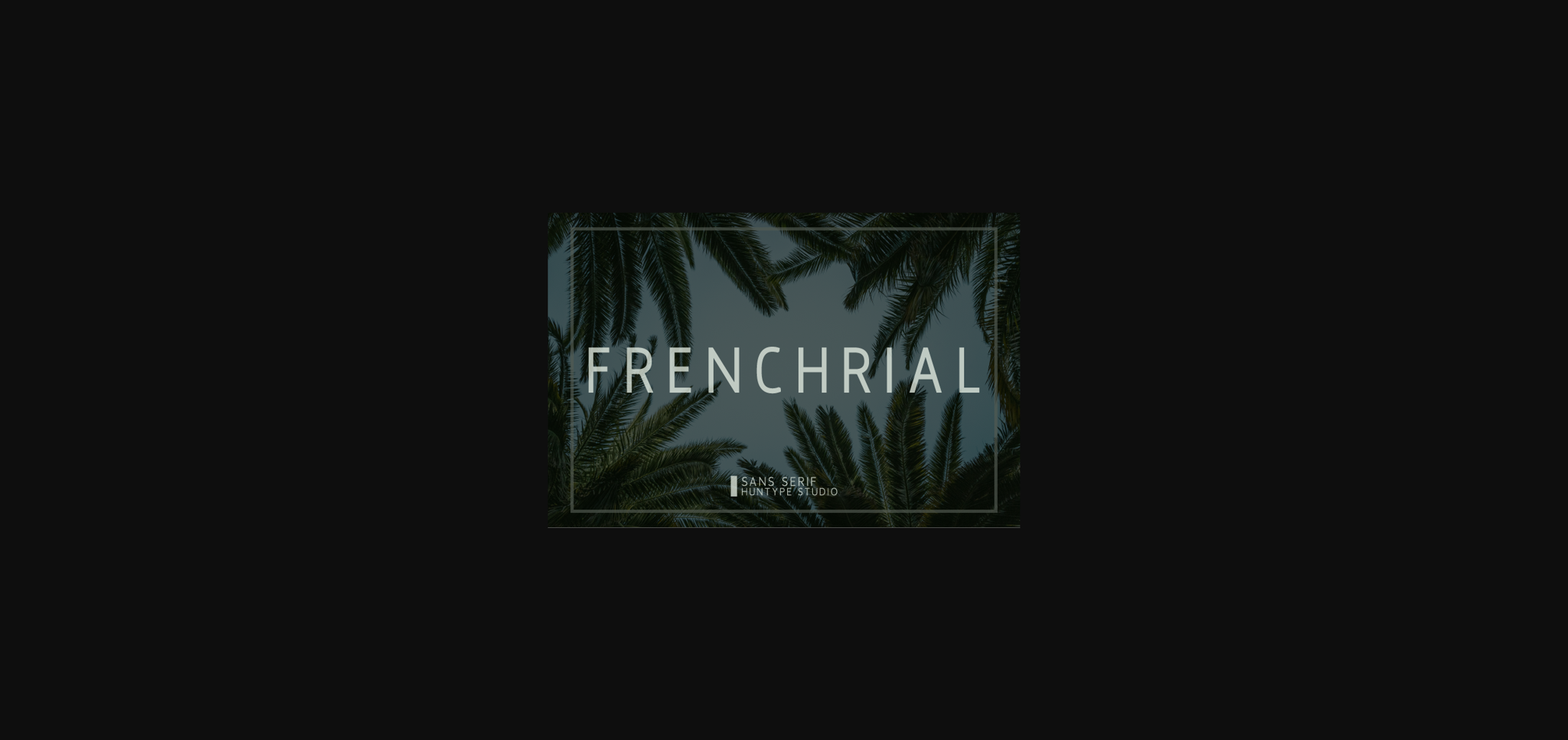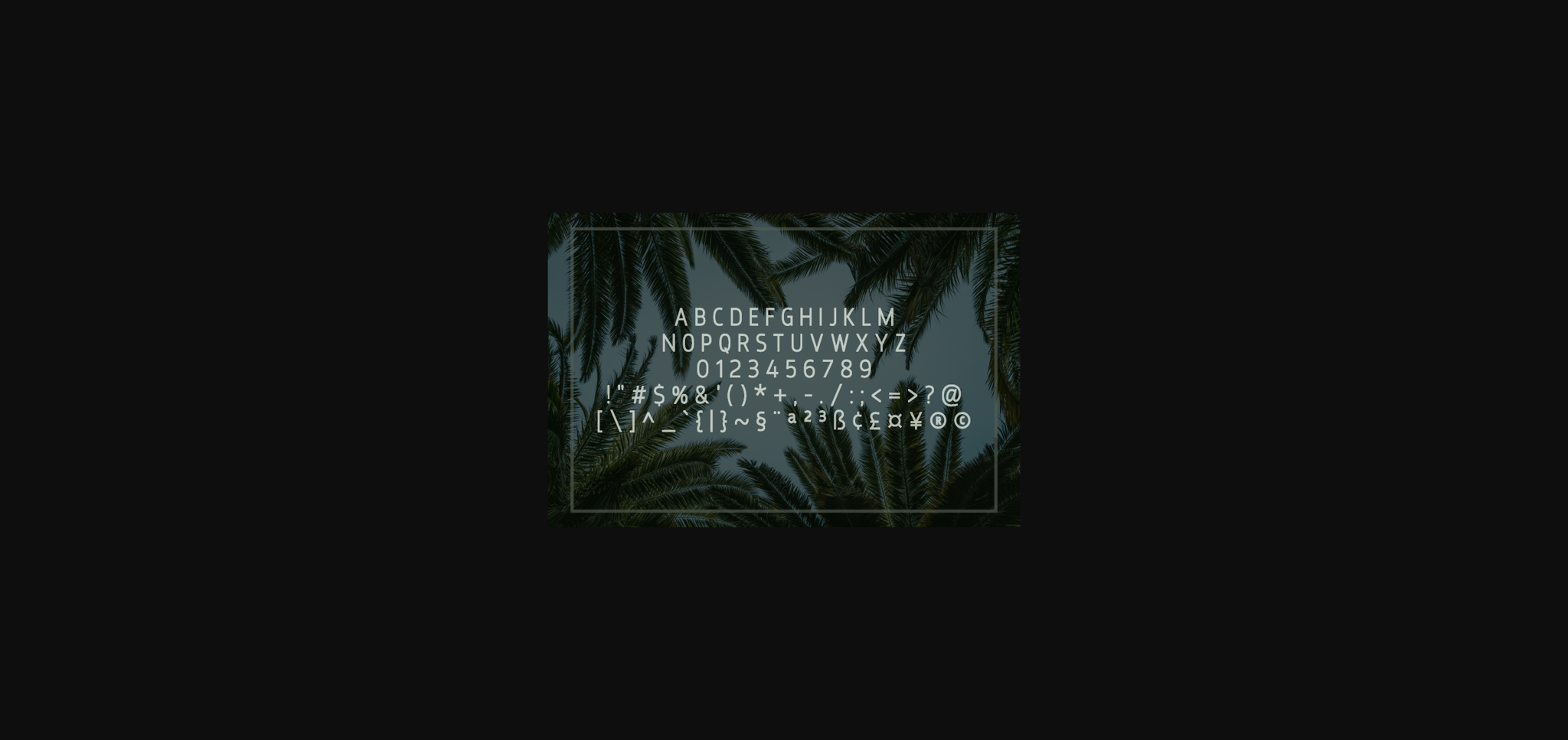
Frenchrial Font
About Frenchrial Font
Frenchrial is a fancy, contemporary sans serif font. It will complement any design need perfectly with its perfectly balanced mix of the smooth and sharp!